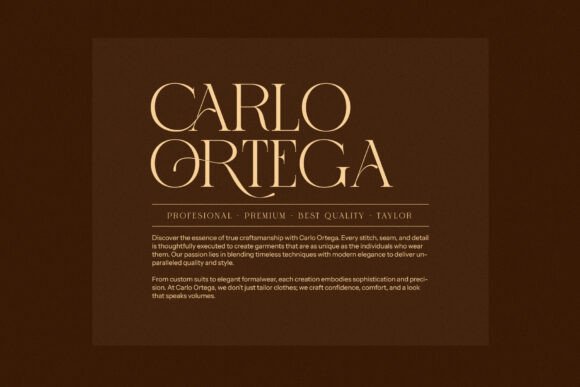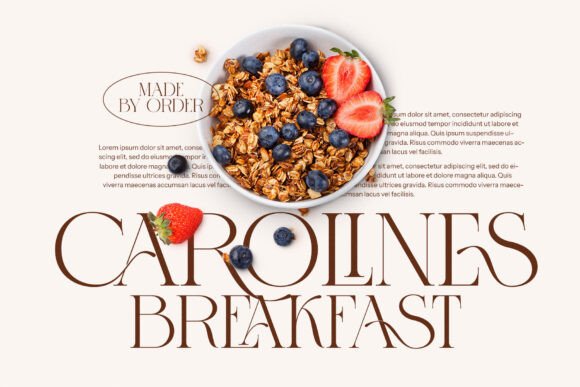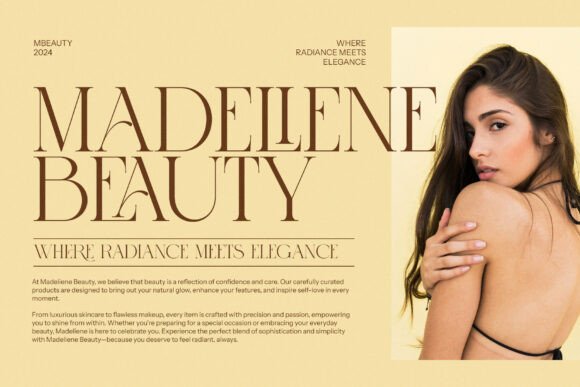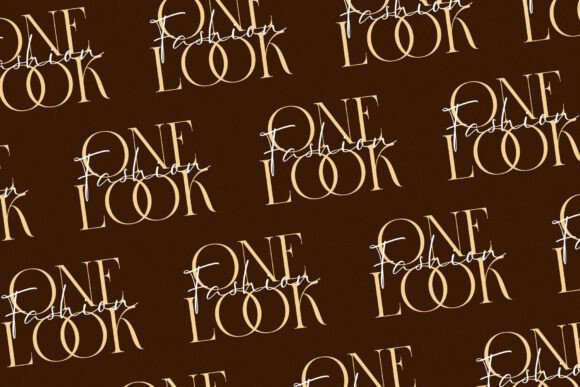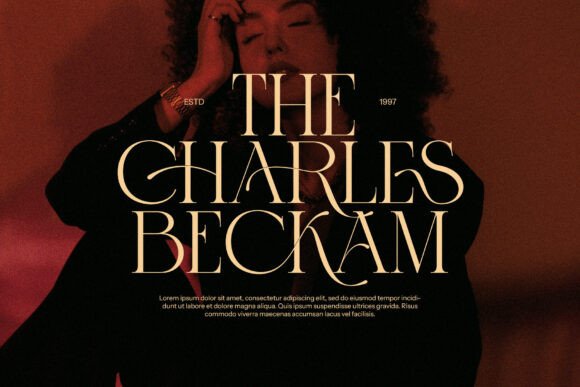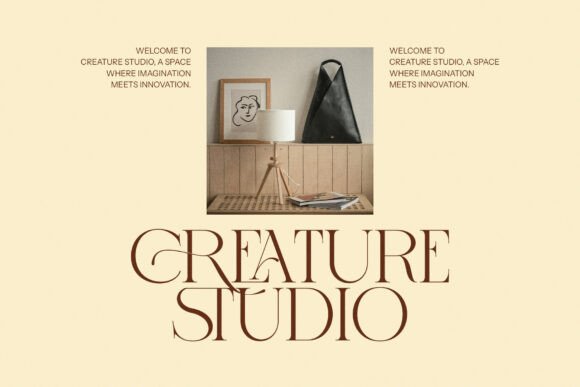
Aroges Font: Elevate Your Design with Modern Sophistication and Timeless Charm
In the world of typography, a font can make or break the aesthetic of a design project. For those seeking a typeface that embodies both modern sophistication and timeless charm, Aroges Font stands out as an exceptional choice. With its meticulously crafted serifs and elegant curves, Aroges brings an air of luxury and refinement to any creative endeavor. This versatile font seamlessly blends traditional elegance with a contemporary edge, making it suitable for a wide array of applications, from editorial design to branding and packaging.
The Essence of Aroges: A Perfect Blend of Classic and Modern
Aroges Font is not just a typeface; it’s an experience. Its design is rooted in the principles of classic typography, yet it carries a fresh, modern vibe that sets it apart from more traditional fonts. The carefully designed serifs add a touch of sophistication, while the graceful curves provide a sense of fluidity and movement. This balance between classic and modern elements makes Aroges incredibly versatile, capable of enhancing both print and digital designs.
Unique Features of Aroges Font
One of the standout features of Aroges is its unique ligatures and alternate characters. These elements allow designers to create dynamic typographic compositions that are not only visually appealing but also highly customizable. The ligatures add a touch of elegance and continuity to the text, making it perfect for use in high-end editorial projects, luxury branding, and refined packaging designs.
The alternate characters in Aroges provide further flexibility, enabling designers to vary the look and feel of their typography. Whether you’re looking to create a bold statement or a subtle nuance, Aroges offers the tools to bring your vision to life. This level of customization is particularly valuable for brands looking to establish a unique visual identity.
Applications of Aroges Font
The versatility of Aroges Font makes it suitable for a wide range of applications. Here are a few examples:
- Editorial Design: Aroges is ideal for magazines, journals, and books that require a touch of elegance and sophistication.
- Luxury Branding: For brands that want to convey a sense of luxury and refinement, Aroges offers a typographic solution that is both timeless and contemporary.
- Packaging Design: The unique ligatures and alternate characters in Aroges make it perfect for product packaging that needs to stand out on store shelves.
- Digital Design: Aroges also performs exceptionally well in digital environments, from website headers to social media graphics.
Why Choose Aroges Font?
Choosing Aroges Font for your design project means selecting a typeface that is not only beautiful but also highly functional. Here are a few reasons why Aroges stands out:
- Unique Design: Aroges offers a distinctive look that sets it apart from more commonly used fonts.
- Versatility: Its range of ligatures and alternate characters makes it suitable for a wide variety of design applications.
- Legibility: Despite its elegant design, Aroges maintains excellent legibility, making it suitable for both body text and headlines.
Aroges Font is a remarkable typeface that brings a unique blend of modern sophistication and timeless charm to any design project. Its carefully crafted serifs, graceful curves, and versatile features make it an ideal choice for designers and crafters looking to elevate their work. Whether you’re creating an editorial masterpiece, a luxury brand identity, or innovative packaging, Aroges offers the typographic excellence you need to make a lasting impression.